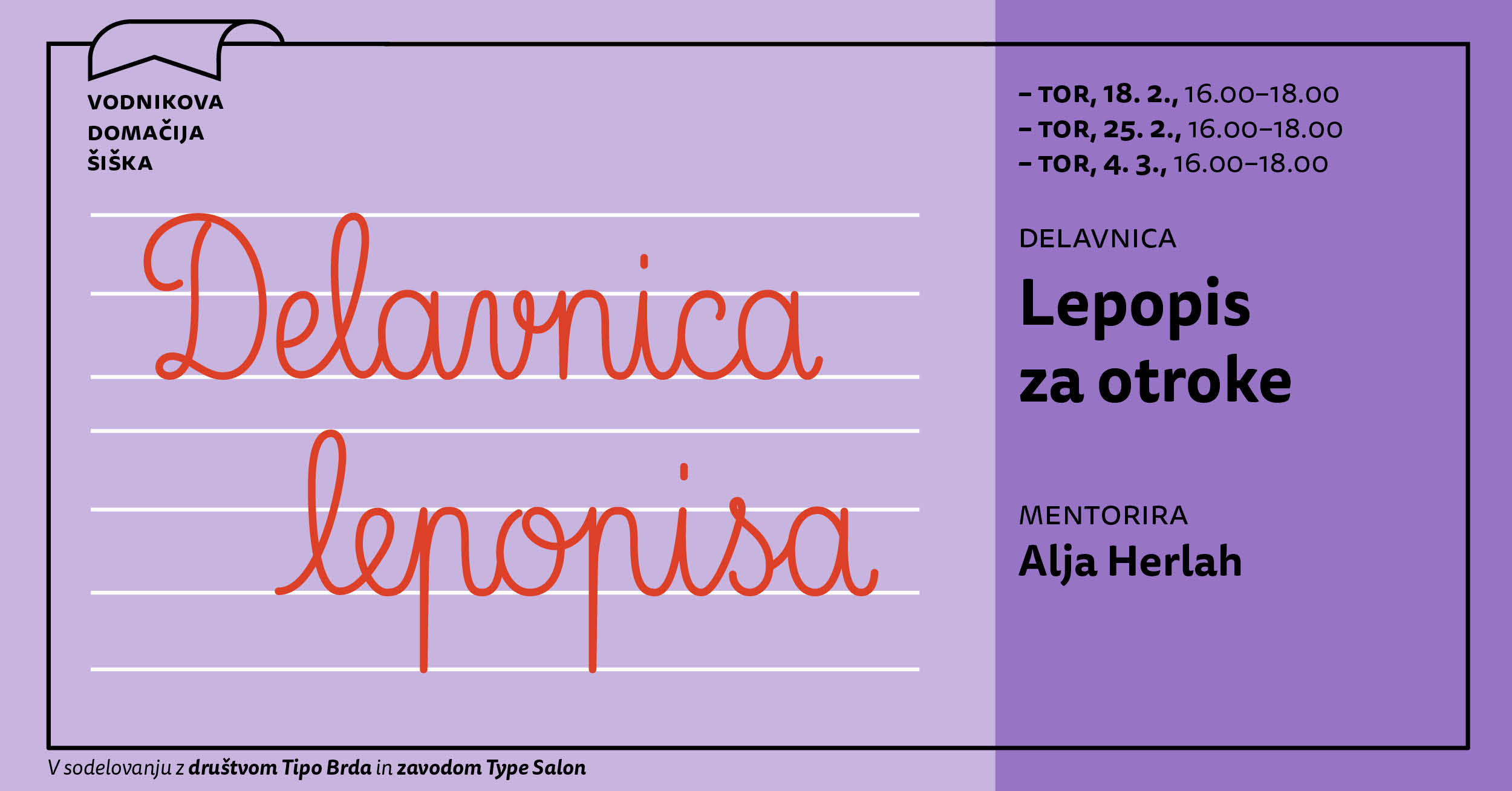
Have a look at Type Salon’s diverse projects. From fonts in use, case studies of retail and custom fonts, to the workshops and conference presentations.
LEPOPIS za otroke
2025
Hosted by Vodnikova domačija
LETTERING workshop for children 8–12
19 – 21 September, 2025
Hosted by Otroški knjižni festival
Type Design Workshop with Reiner Erich Scheichelbauer
19 – 21 September, 2025
Hosted by MG+MSUM
We enhanced our Glyphs skills with Rainer Erich Scheichelbauer in a weekend workshop, where we dove deep into advanced techniques such as outline optimization, component management, interpolation, hinting, kerning strategies, and using project files to streamline our type production process.
Designing typefaces
2 – 7 September, 2024
Hosted by Hostel Pliskovica
We spent six days in Pliskovica refining our calligraphy skills. The workshop began with brush calligraphy, which was both challenging and rewarding. Based on our practice, we developed a sign as a final piece. The second part focused on Roman Capitals, a more complex style where the brush angle continuously changes. With guidance from our mentor, Viktoria Lopukhina, and collaboration with fellow participants, the workshop was a productive learning experience.
Designing typefaces
4 – 9 September, 2023
Hosted by Hostel Pliskovica
We are thrilled for our upcoming Tipo Brda workshop in the form of a 6 days long type camp, where you will have the opportunity to expand your type design and lettering skills. Whether you are a seasoned designer or just starting out, this workshop will provide you with a unique chance to explore the fundamentals and design process. You will learn about the process of designing a typeface from start to finish, including sketching, digitizing, and refining your design. During this hands-on workshop, you will learn about the basics of calligraphy (foundation hand), sketching with double pencil, principles of type design and how to effectively use skills of type design in your projects. Led by experienced professionals, this workshop promises to be a valuable and rewarding experience for all participants. You will also have the opportunity to network with other designers, exchange ideas and get feedback on your work.
Exploring letterforms
12–17 June, 2023
Lead by Alja Herlah, Nejc Prah, Zoran Pungerčar
Hosted by ALUO
We have seen quite a few technological milestones in the realm of communication design in the last two decades. Rise of social media, specialized websites and blogs with design content, festivals and conferences, new reproduction processes, global industrial standards, all have tremendous impact on typography as a core discipline of visual communication. Typography was always strongly connected with technology and deeply rooted in culture and language. Nowadays, the typographic culture and language are globally popularized.
There are many emerging communities of type designers and of type users also in places with less typographic tradition. Plenty of online tools enable expressive generative typography with endless possibilities of manipulation. Opentype supported by Unicode standard, webfont formats, browser and programming languages development, variable fonts, intuitive font editors, git repos, … all enable exponentially growing font production and market. However it seems the mainstream digital offer somehow lacks originality of innovative letterforms out of the widespread conventions framework.
Digital tools and devices benefit us in many ways. The accuracy, speed, capacity of either production or dissemination is exceptional compared to past technologies. On the other hand, interaction with computers always happens through the interface. This is frustrating. The analog workflow: brain, hands, tool is different and rewarding. It challenges opposite, alternative creative processes, and leads us to unpredictable results. Results that visually help us to answer the initial questions of this research:
What can be a letterform?
How can letterforms develop?
How can letterforms become typefaces?
Creating letters based on Jože Plečnik
September 10, 2022
Workshop was organized by Type Salon.
Hosted by MAO
First, we build the letter shapes and place them in the inscription, since the letters are rarely used by themselves. In this way, we will learn about the principle of drawing letters, which was used by Plečnik himself – he drew letters for his inscriptions on buildings. Letter forms were based on the shape of a circle and a rectangle.
Weekend on script lettering with Ivan Castro
September 10–11, 2022
Workshop was organized by TIPO BRDA with help from Type Salon.
Hosted by MAO
We experienced how to approach a script lettering piece, from the first sketch to the final work. After practicing the foundations of brush-written calligraphy and through slide presentations and practical demonstrations, we learned the basics of lettering, sketching techniques, the logic of rhythm, composition and all that technical stuff that makes a difference. We also learned different ways of starting a script lettering work, and everyone got to do their own project that consisted of a logotype or a short sentence, with the help of the personal tuition of the instructor.
Experimental Calligraphy
June 11–13,2021
Mestni muzej Ljubljana
In June 2021, we organized a workshop with Tipo Brda society and Dutch calligrapher and lettering artist Guido de Boer. The event took place at the City Museum of Ljubljana, Slovenia. This three-day experimental calligraphy workshop introduced the participants to new ways and ideas on how to start or upgrade their calligraphy skills. The first part of the workshop was dedicated to the traditional form of calligraphy writing, later we explored and learned about new approaches and tools for experimenting and expressive writing. The final result was a group collective zine, everyone contributed their alphabet they designed during different calligraphy games..
Online International Summer School 2020 UL ALUO Type Design with Gerry Leonidas
August 20–24, 2020
Online workshop was organized by UL ALUO,
with help from Type Salon and Tipo Brda, coordinated by Domen Fras.
The online course begins with an understanding of type genres and helps participants conceptualize typefaces and plan typeface families. It introduces writing, sculpting, and synthetic methodologies for style consistency. Systematic development across styles and optical sizes is supported with workflow examples and test documents. Beginning participants will develop with a clear understanding of typeface design spaces, and develop skills for translating their sketches into workable fonts that can be used to typeset test documents. Experienced participants will be able to refine their designs, understand how to position typefaces for specific markets, and explore originality and identity within realistic briefs. The material used in the course can be documented, shared, and re-used.
Plecnik typeface,
designed on the basis of hand drawn letters by Jože Plečnik from the archive collection
Plecnik House Ljubljana
July 2–October 17, 2021
Plecnik is a typeface, designed on the basis of research of the archive collection of hand drawn letters by Jože Plečnik. The most renowned Slovene architect is best known for his architectural works, but his influence on Slovene typography is somewhat less accentuated. From the initial architectural plan to the final details on the building, Plečnik planned his projects in a holistic and careful manner; which follow a unified concept and create a thoughtfully designed finished whole. Inscriptions on monuments, book typesetting, book covers, architectural plan elements, ex-librises, additions in the form of ornaments, initials – these are also among Plečnik’s prolific works, which had a strong influence on Slovene typography.
The exhibition showcases the research and development of the Plecnik typface. Typeface and Plecnik booklet are available in our shop.
Wesna typeface,
design based on Slovenian interwar posters (1st half of 20th century).
Mestna Hiša Ljubljana
October 12–November 20, 2022
Typeface Wesna was created as a reflection of the current state of design whose starting point is rooted in the letterings from the Slovenian posters from the interwar period. Bold strokes, condensed letterforms, sharp stroke joints and unique features are combined in the typeface. Wesna preserves the Slovenian typography heritage and establishes the connection between the past and the present through new digital formation.
The exhibition showcases the story and design of the Wesna typface. Typeface Wesna is available in our shop.
part of the book SUPPORT INDEPENDENT TYPE II
2025
Typography day 2021
September 2021
We presented our latest project and exhibition: Plecnik.
INDIGO design festival
11. 9. 2020
Trg francoske revolucije, Ljubljana
We have been given the opportunity to give a public presenation on Indigo design festival. We talked about the story that inspired us to develop and design our typeface Spektra.
TypeWKND online conference
24–27 September 2020
Online Type Conference
We have been given the opportunity to give an online presenation on TypWKND online conference. We talked about the story that inspired us to develop and design our typeface Spektra. Watch our recorded video presentation here.